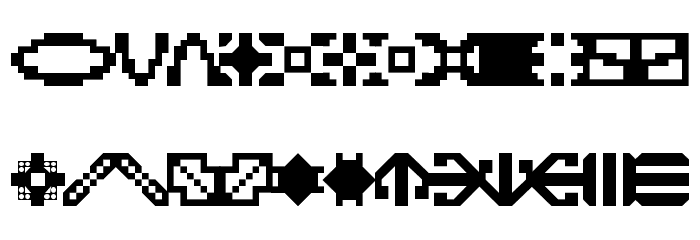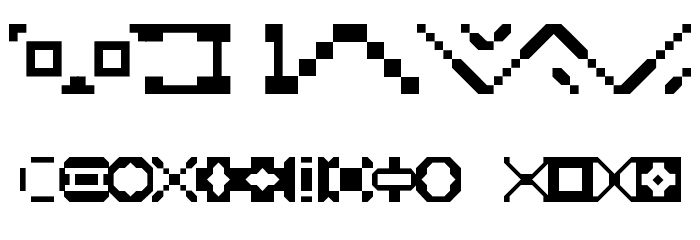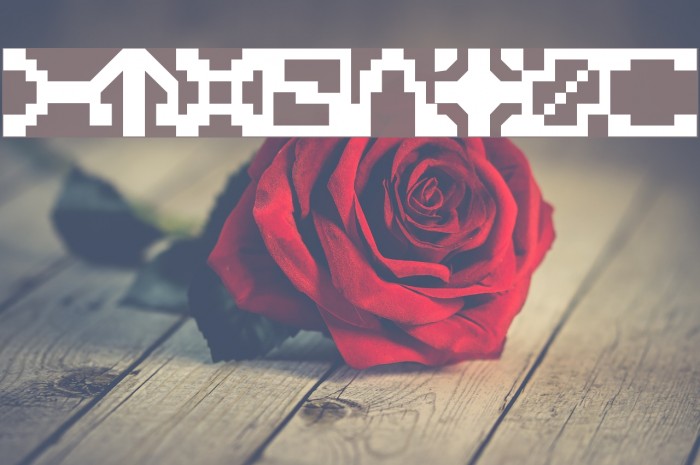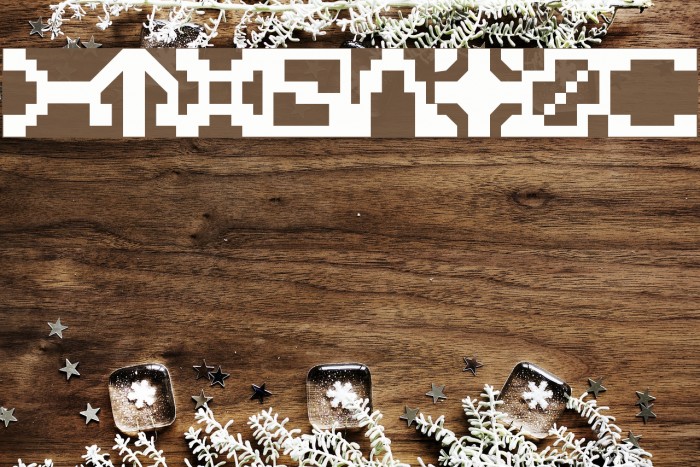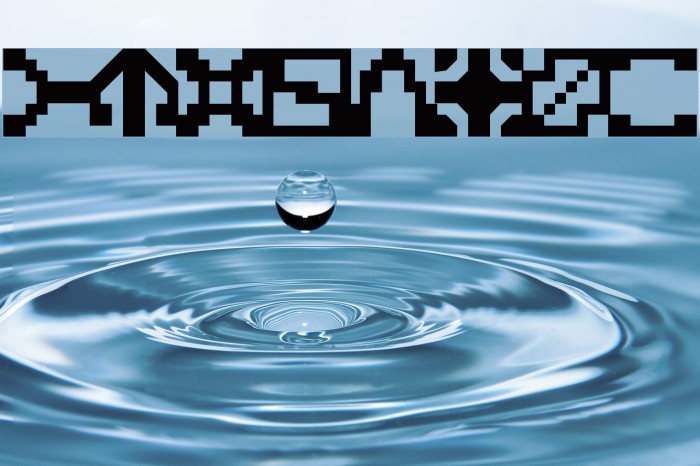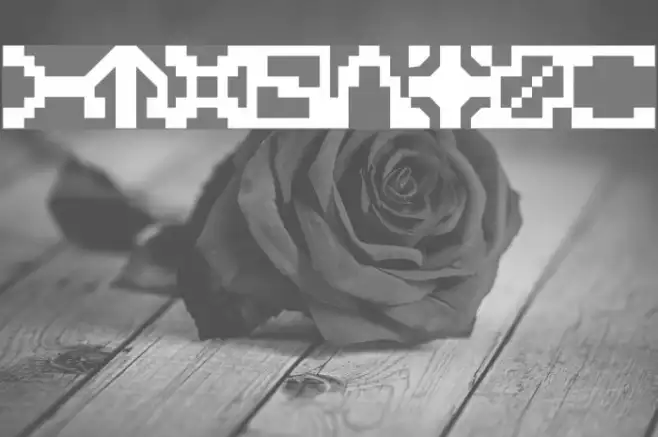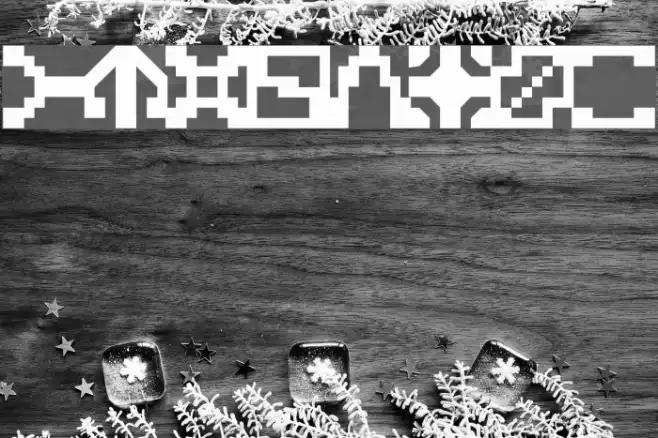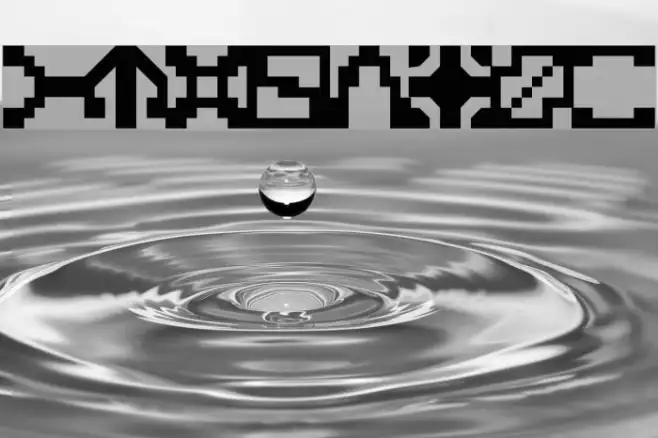
Builder2 Font
This is not a valid font. The image appears to contain abstract or decorative symbols that do not correspond to standard alphanumeric characters or typical font glyphs. The design is highly geometric and pixelated, with a strong emphasis on symmetry and repetitive patterns. It lacks the necessary elements to be used as a functional typeface for text representation.
The image contains abstract symbols, not a valid font.
- Proposed Projects: This design could be used for decorative purposes, such as in graphic design projects, artwork, or as a pattern for textiles.
- Overall Style: Abstract, Geometric
- Use Case: Decorative elements, Art projects